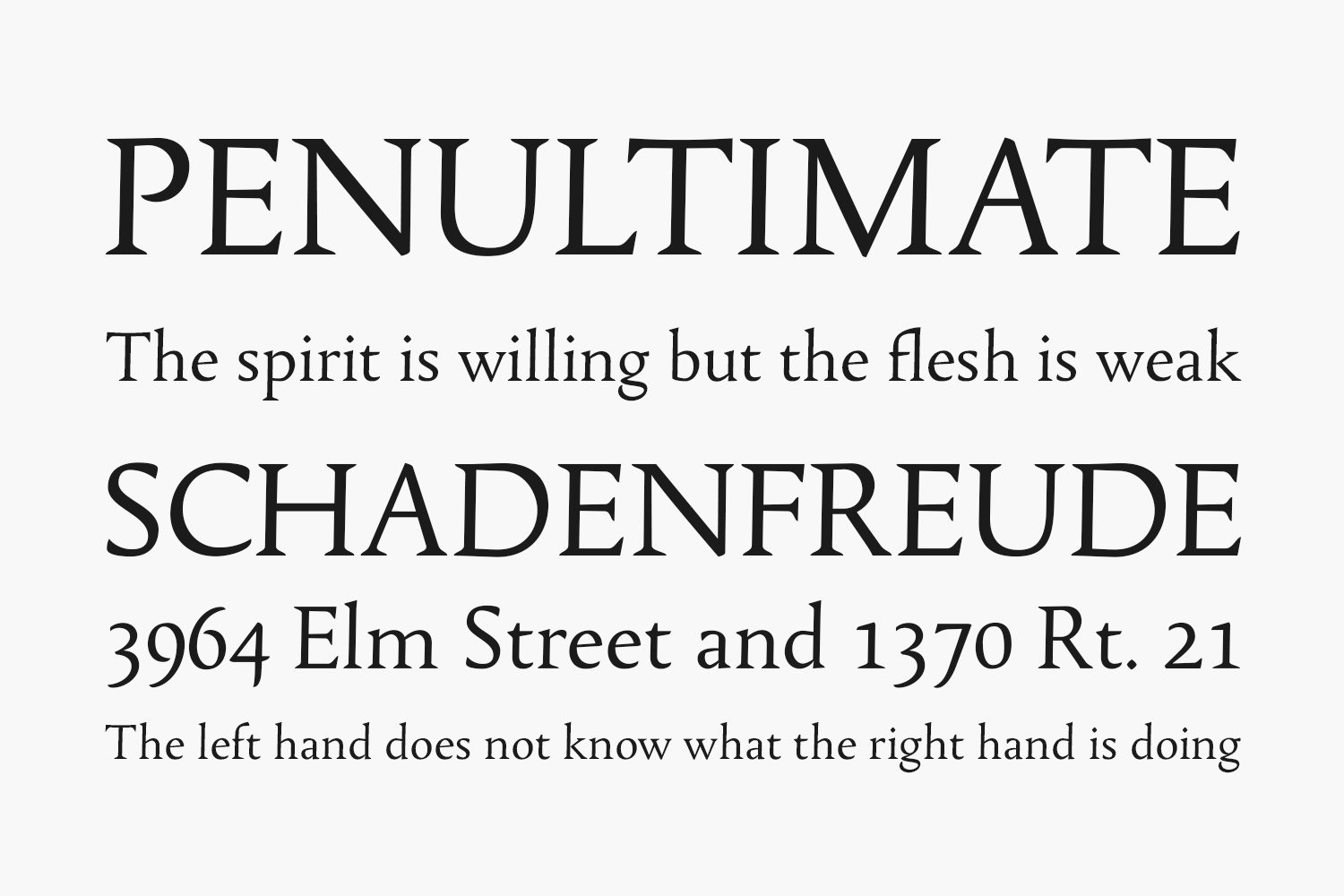
Tallys Free Font is a font that is one degree slanted and has large caps, a small x-height and long ascenders. It comes with hybrid numbers and a complete character set.
Designed by Exljbris